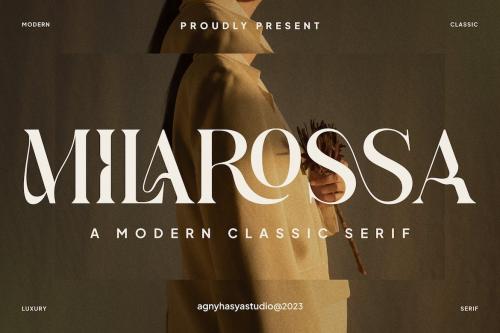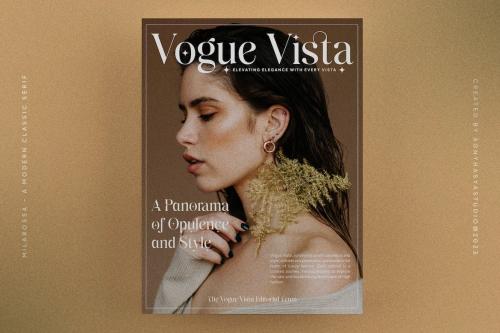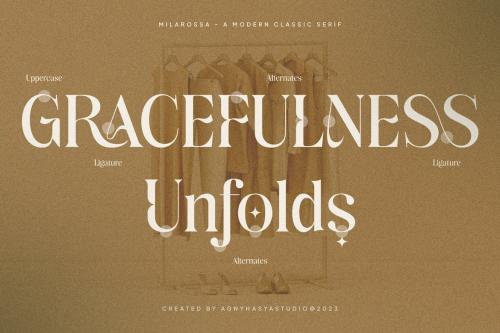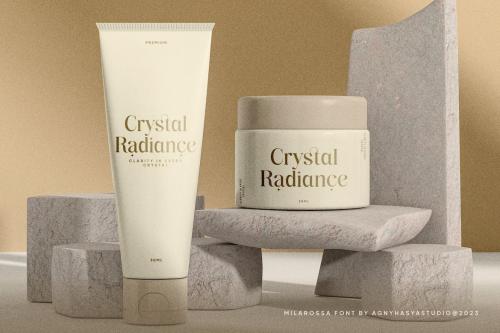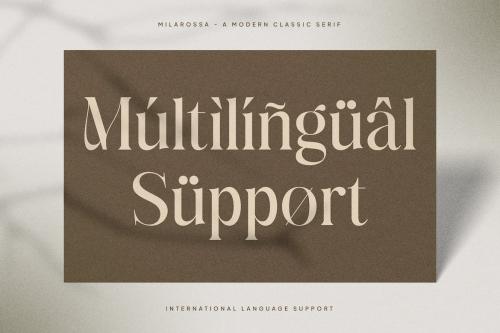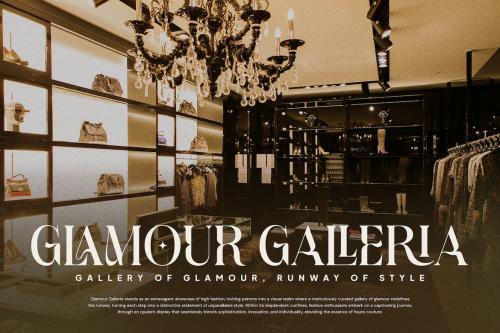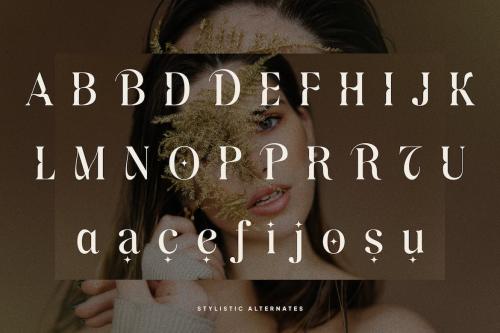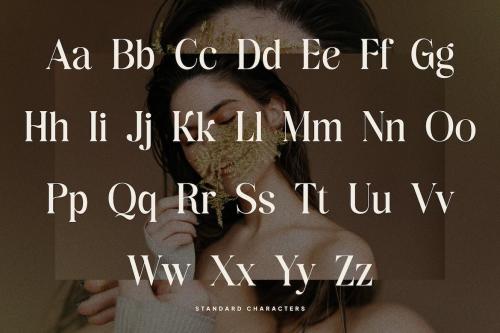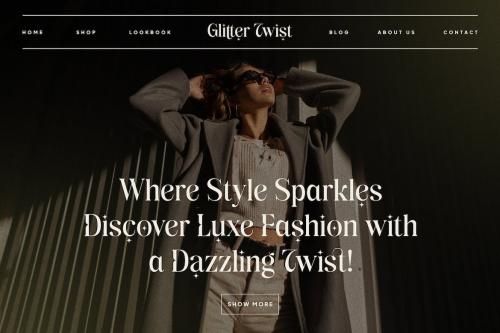
米尔罗萨字体
Milarossa - A Modern Classic Serif
Milarossa Font
**Milarossa** Is a Serif Display Typeface That Is Elegant, Classic Yet Modern. It Comes in 2 (Two) Styles (Regular and Italic) and Is Created With Stylistic Alternatives and Ligatures. Combine It and Make Your Perfect Typography Design! Perfect for Your Design Projects Like Logos, Branding, Advertising, Product Designs, Stationery, Magazine Designs, Book/Cover Title Designs, Photography, Art Quotes, Wedding Designs, Fashion Designs, Special Events, Labels, Product Packaging, and More.
Proudly Present **Milarossa - A Modern Classic Serif**
**Milarossa** Is a Serif Display Typeface That Is Elegant, Classic Yet Modern. It Comes in 2 (Two) Styles (Regular and Italic) and Is Created With Stylistic Alternatives and Ligatures. Combine It and Make Your Perfect Typography Design!
Perfect for Your Design Projects Like Logos, Branding, Advertising, Product Designs, Stationery, Magazine Designs, Book/Cover Title Designs, Photography, Art Quotes, Wedding Designs, Fashion Designs, Special Events, Labels, Product Packaging, and More.
**Features**
* Uppercase & Lowercase
* Numeral & Punctuation
* Multilingual Support
* Opentype Features